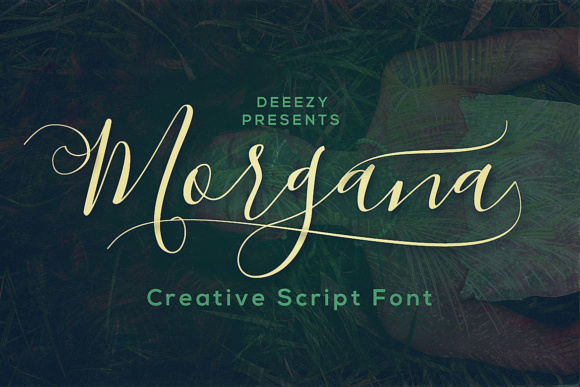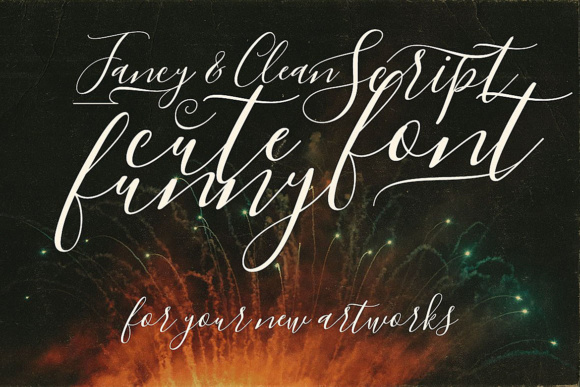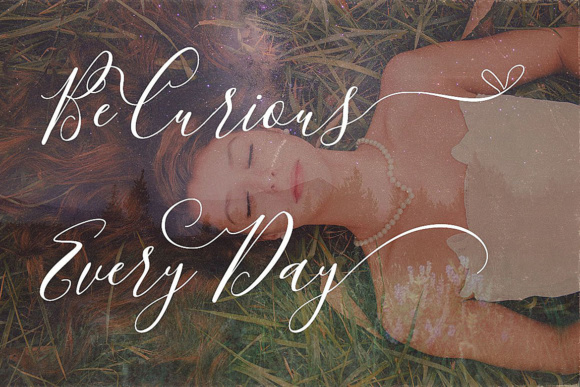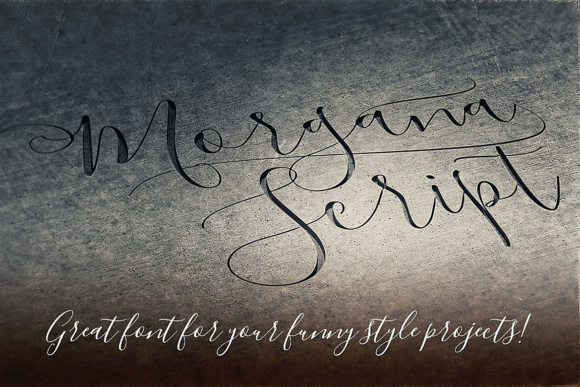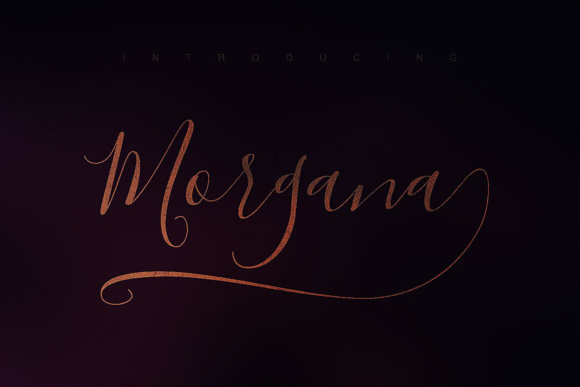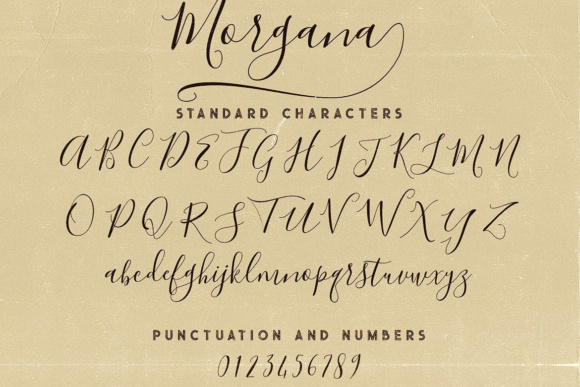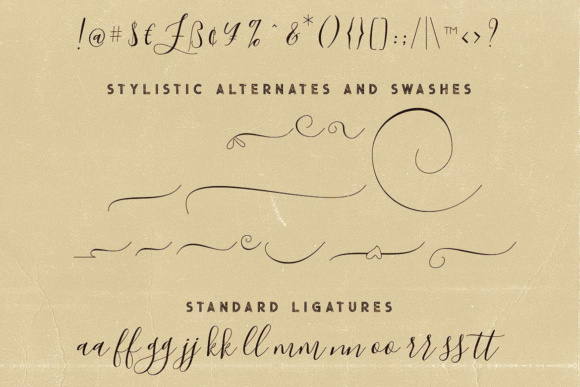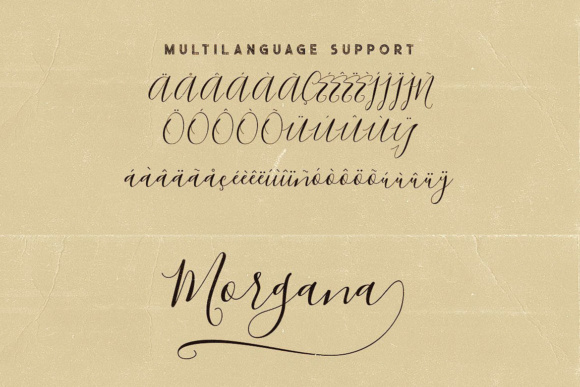
Morgana Script Font
About Morgana Script Font
Morgana is a clean and fancy style script font. With it’s elegant style and swashes, Morgana is perfect for many types of designing projects.